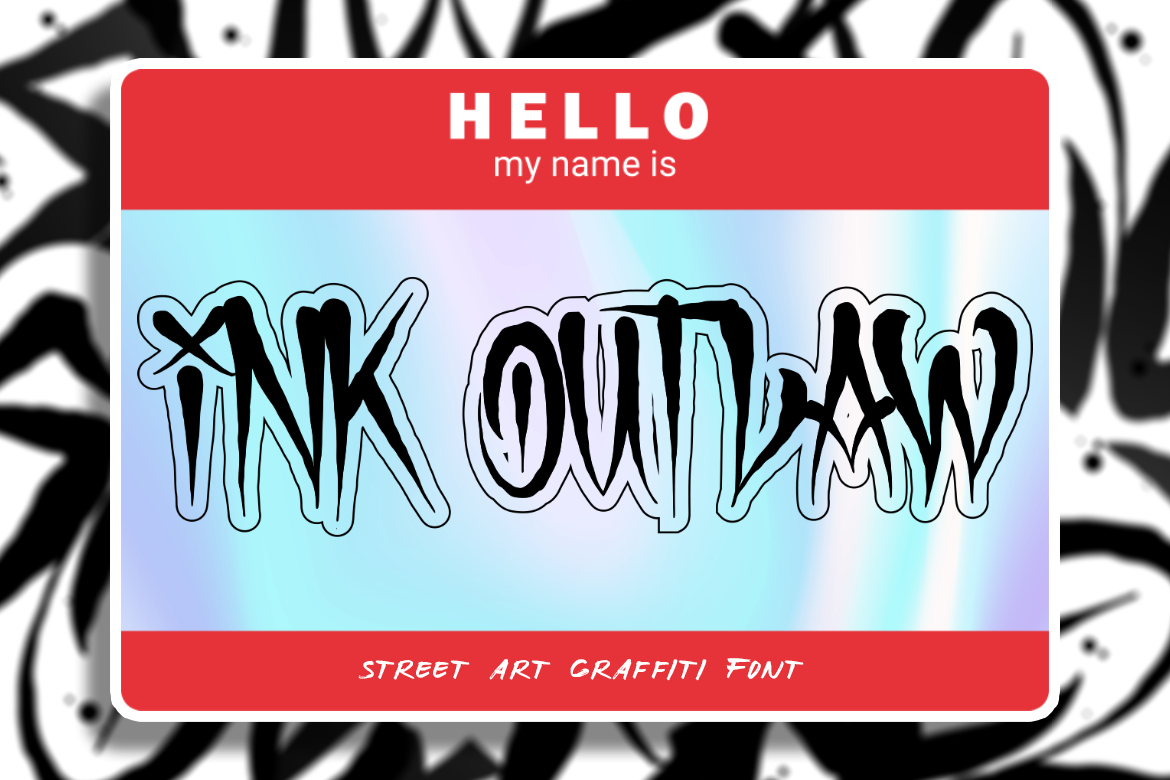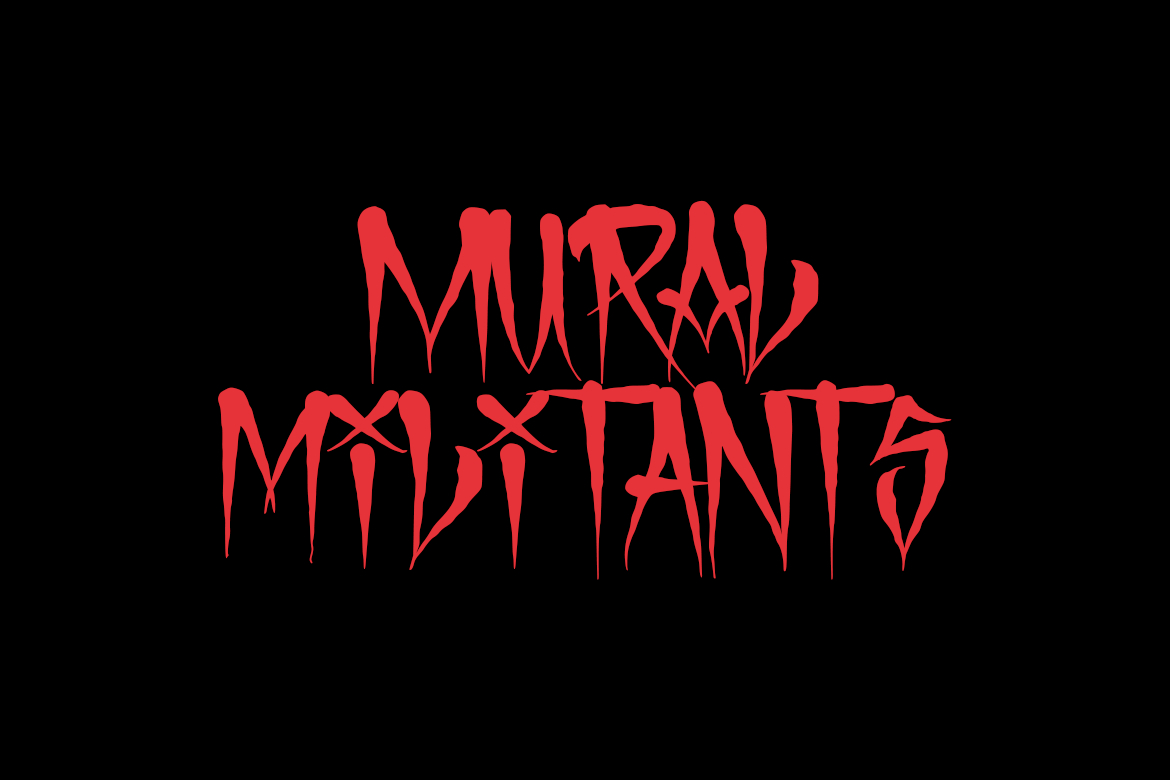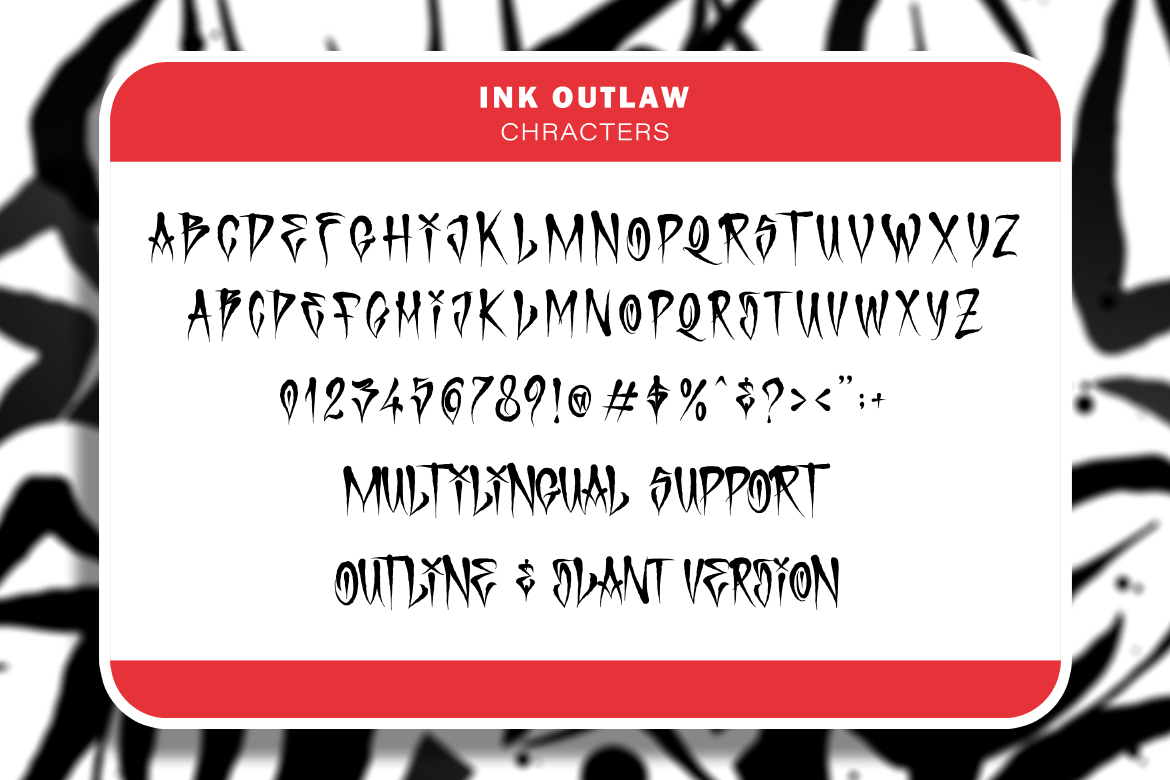
About Ink Outlaw Font
Ink Outlaw is not just a font; it’s a rebellious statement in every stroke. Inspired by the raw energy and urban artistry of graffiti and vandalism, this font unleashes a torrent of creativity onto your canvas. Each letter is a work of defiant art, meticulously designed to capture the edgy spirit of street culture.
With Ink Outlaw, your designs will command attention and provoke thought. Its bold and irregular lines, dripping paint effect, and rugged edges give your text a gritty, authentic graffiti feel. Whether you’re working on posters, apparel, album covers, or any project that needs an unapologetically bold aesthetic, Ink Outlaw will be your accomplice in making a powerful statement.
Embrace the outlaw spirit, break free from conformity, and let Ink Outlaw become the voice of your artistic rebellion. Transform your designs into urban masterpieces with this distinctive and daring font.